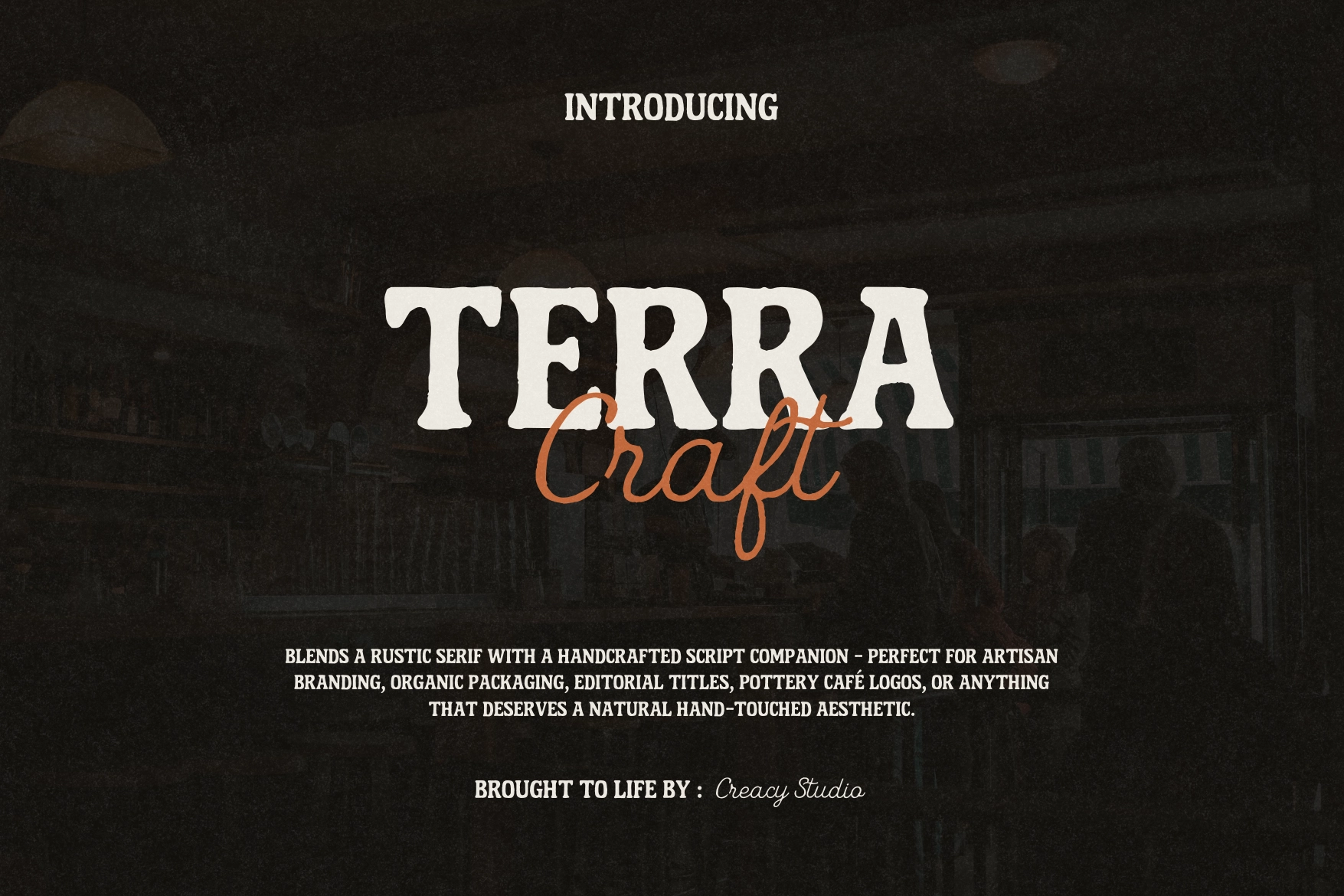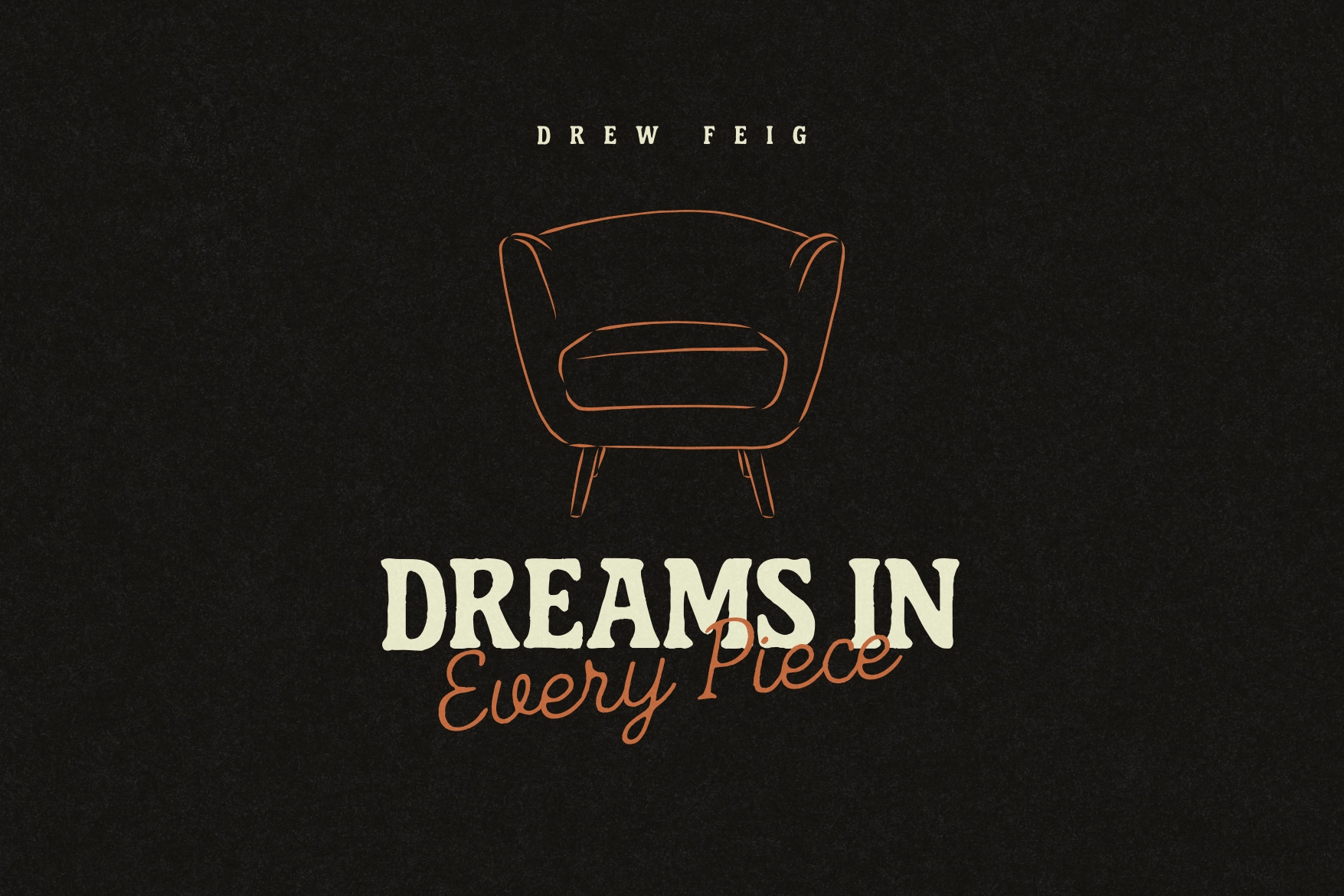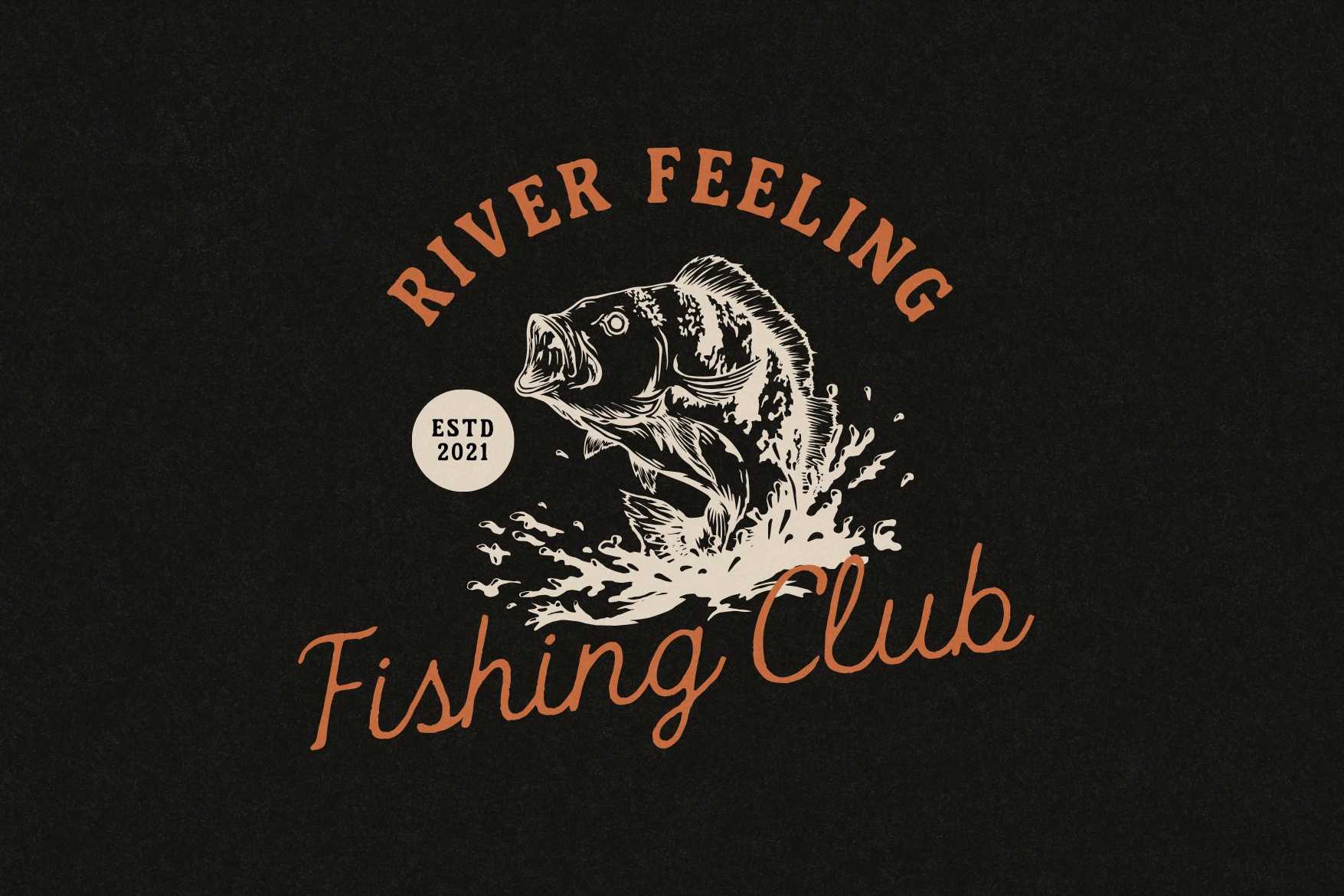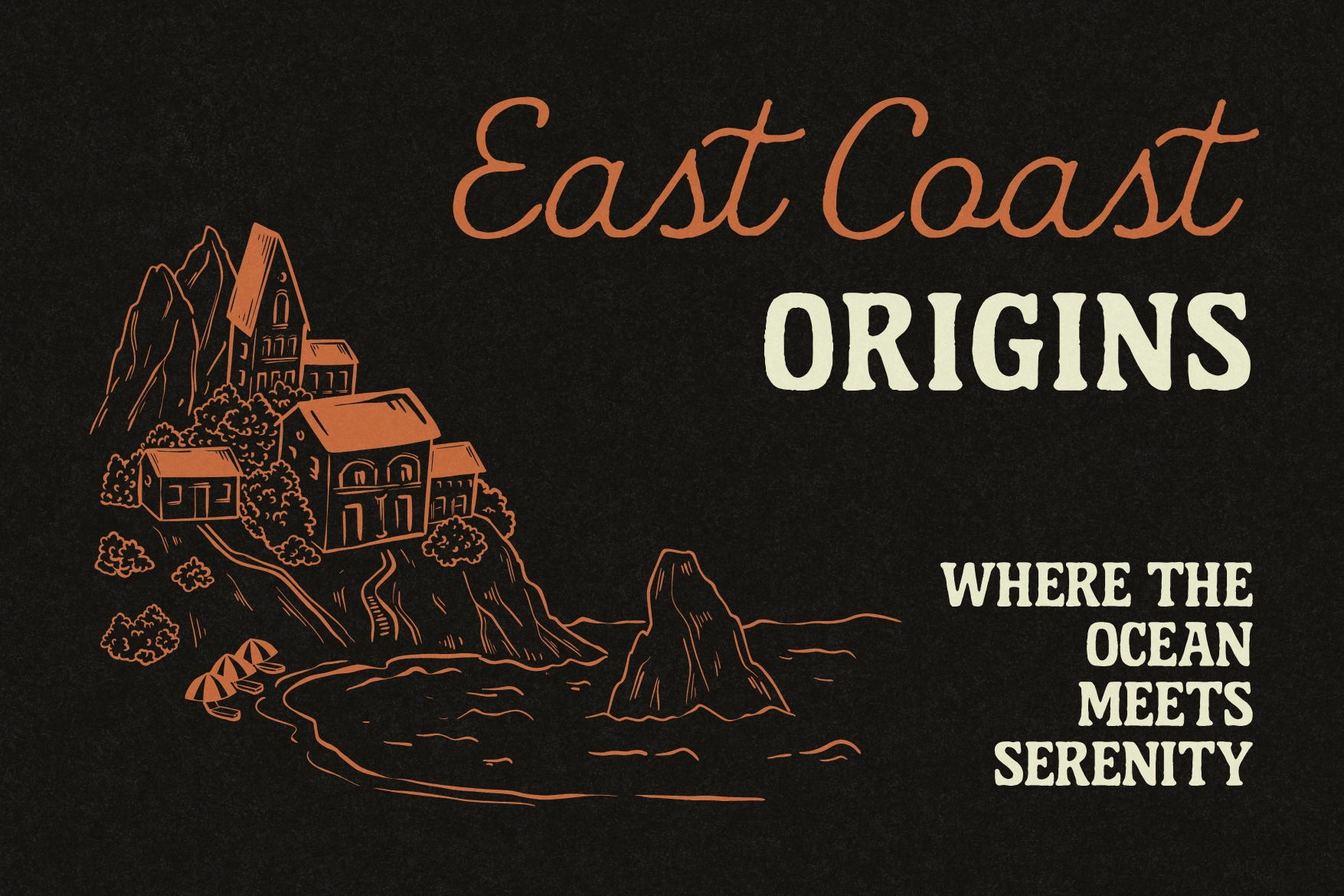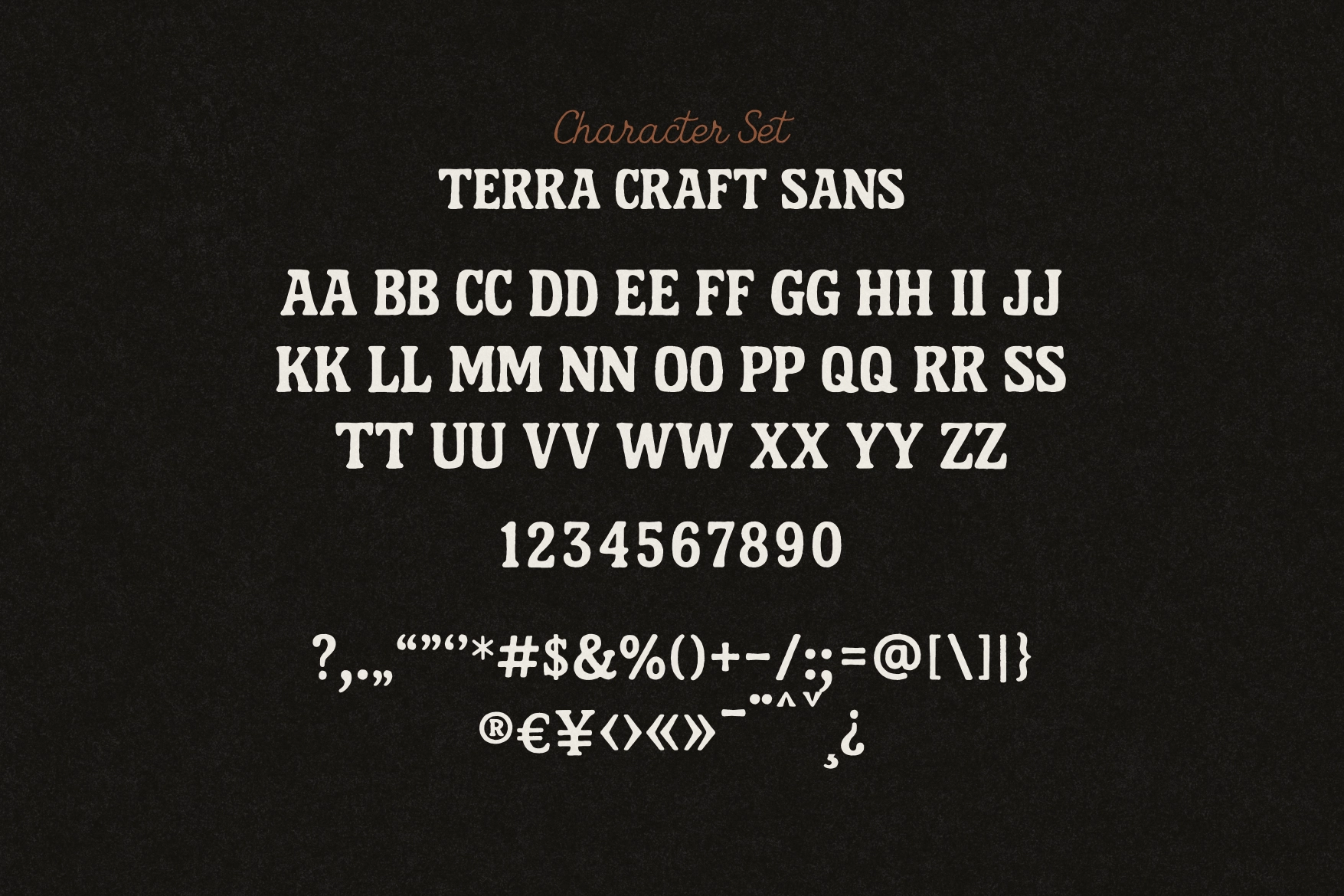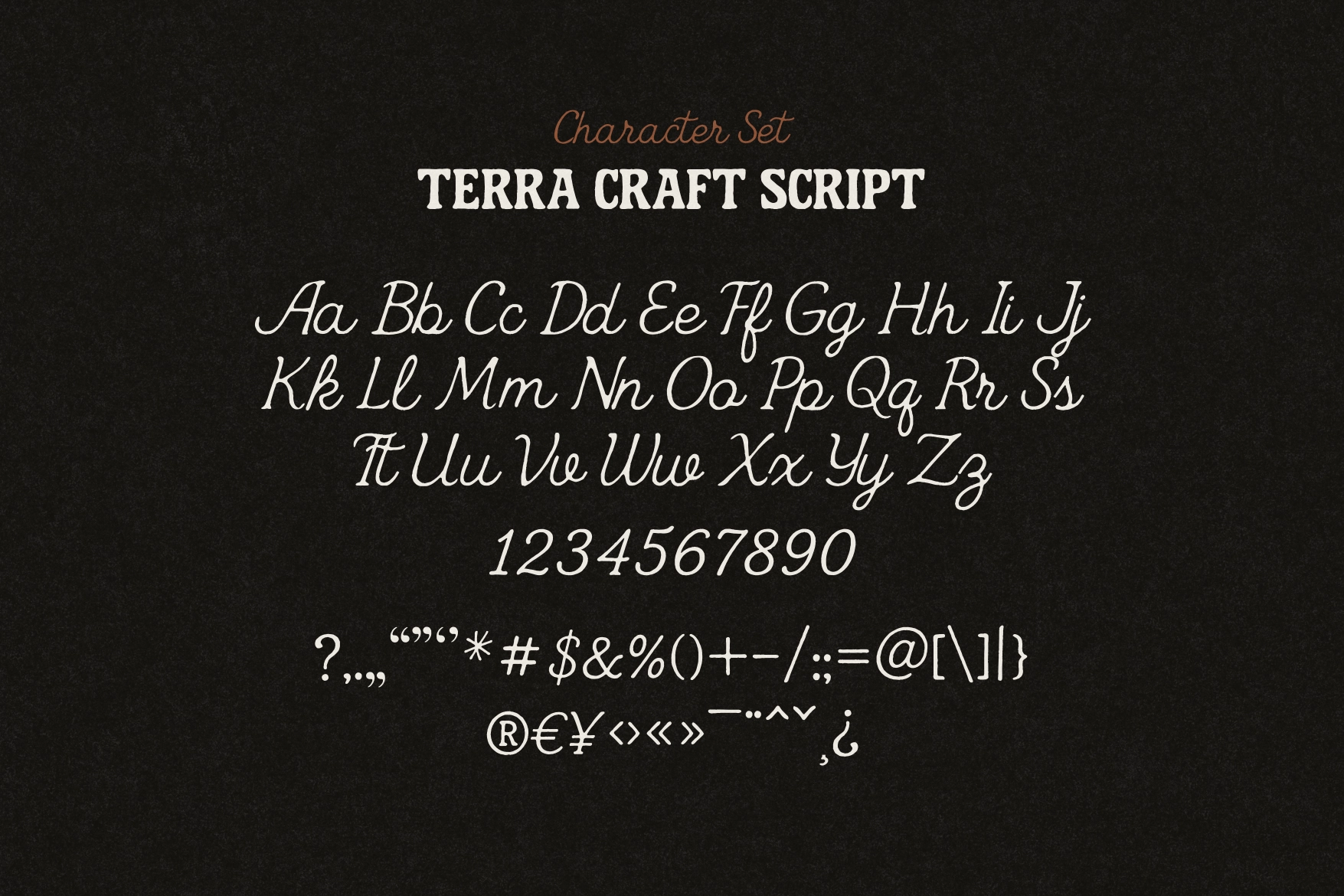
Terra Craft – Serif Script Duo
Where timeless craftsmanship meets modern design — introducing Terra Craft, a sophisticated Font Duo that beautifully blends vintage serif structure with handwritten script charm.
Inspired by artisanal lettering and natural textures, Terra Craft evokes warmth, authenticity, and creative balance. The serif font anchors your design with structure and elegance, while the script font adds organic rhythm and personality — perfect harmony for brand identities that feel both crafted and contemporary.
From packaging and lifestyle branding to editorial and signage, Terra Craft is made for creators who love fonts with story, texture, and versatility.
- Terra Craft Serif (vintage-inspired display)
- Terra Craft Script (handcrafted cursive companion)
- Uppercase & lowercase
- Numerals, punctuation, and ligatures
Perfect For
- Branding & packaging
- Boutique labels
- Editorial design
- Logo creation
- Organic lifestyle products